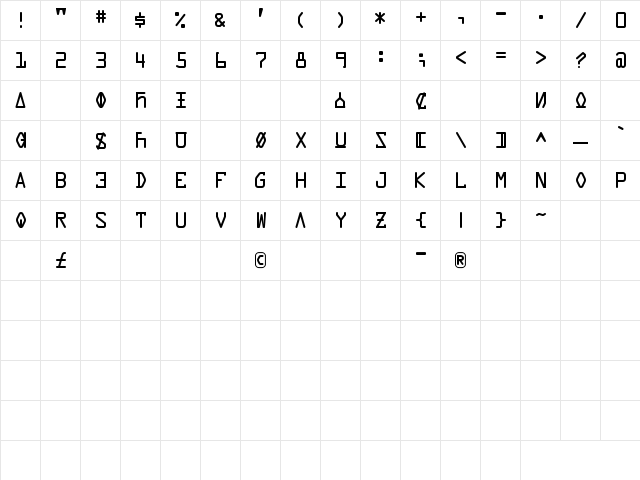
Data Control Unifon Unifon Font Preview
Data Control Unifon Unifon
Design Context for Data Control Unifon Typeface
Data Control Unifon is a composed and adaptable typeface that performs quietly and consistently across a wide range of design contexts.